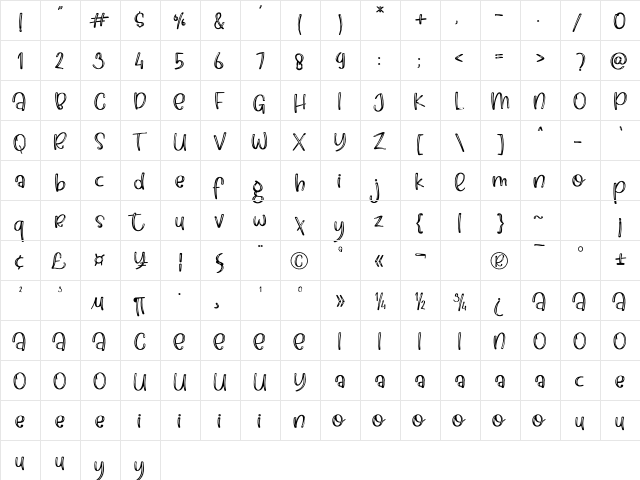
Lazy Chicken Inline
Design Context for Lazy Chicken Typeface
Lazy Chicken is built around its visual character rather than neutral utility — its distinctive forms are designed to make an impression at display sizes.
Font Pairing: Pair with a clean neutral sans-serif for body copy to let Lazy Chicken's character lead without overwhelming the composition.
Pro Tip: Use Lazy Chicken exclusively at display sizes — it was designed to be seen, not read at length. Let a neutral companion handle body copy.